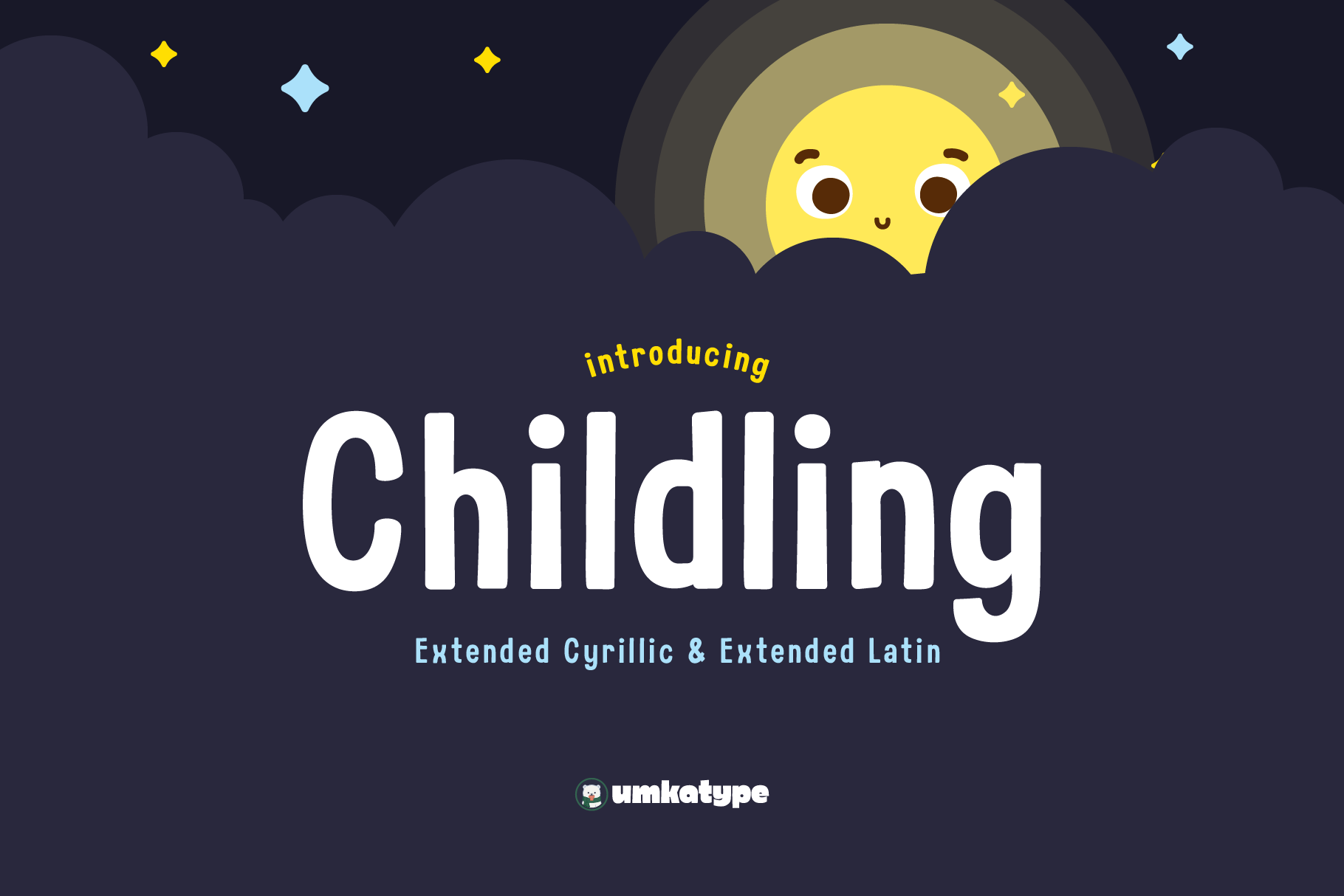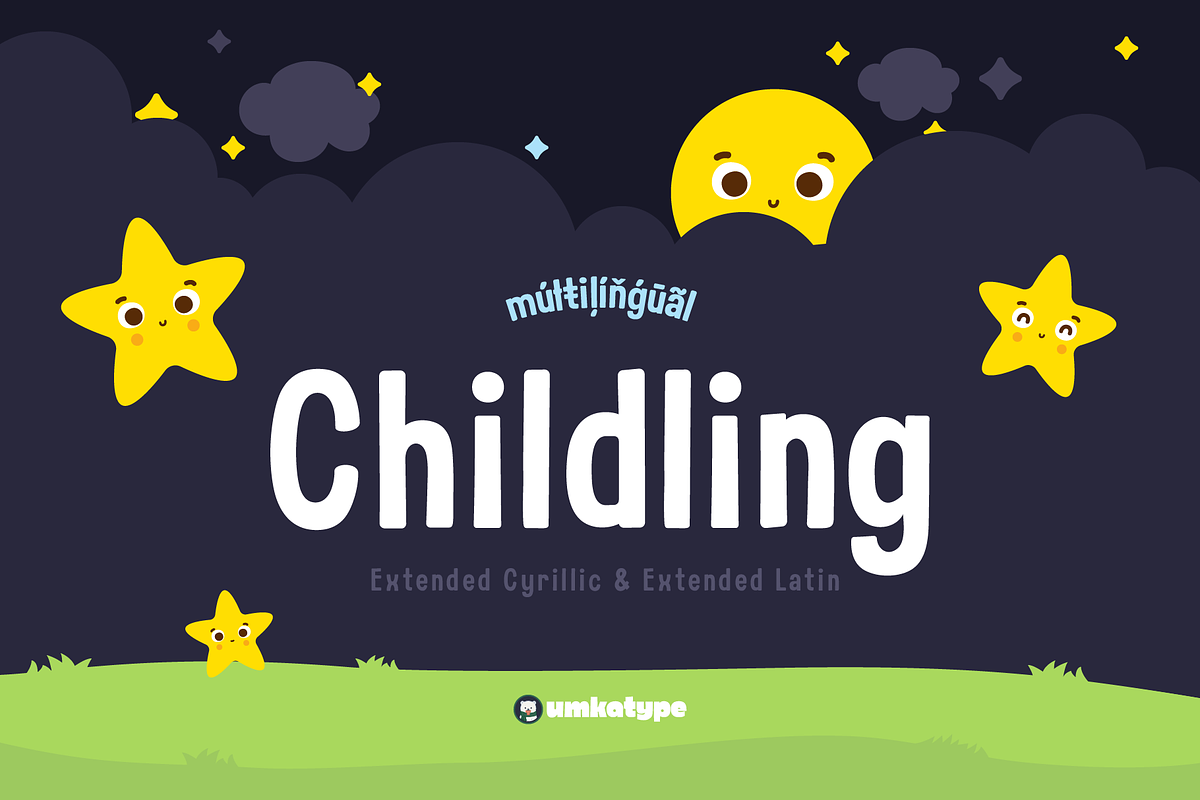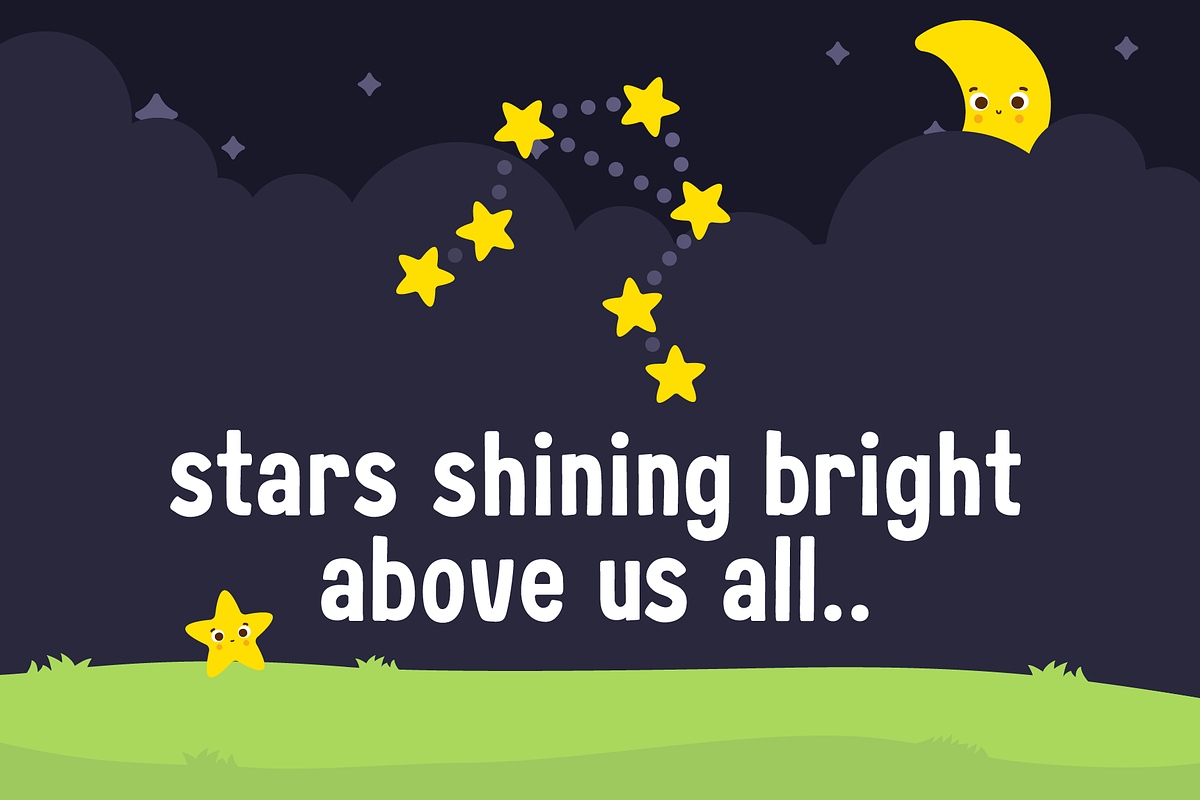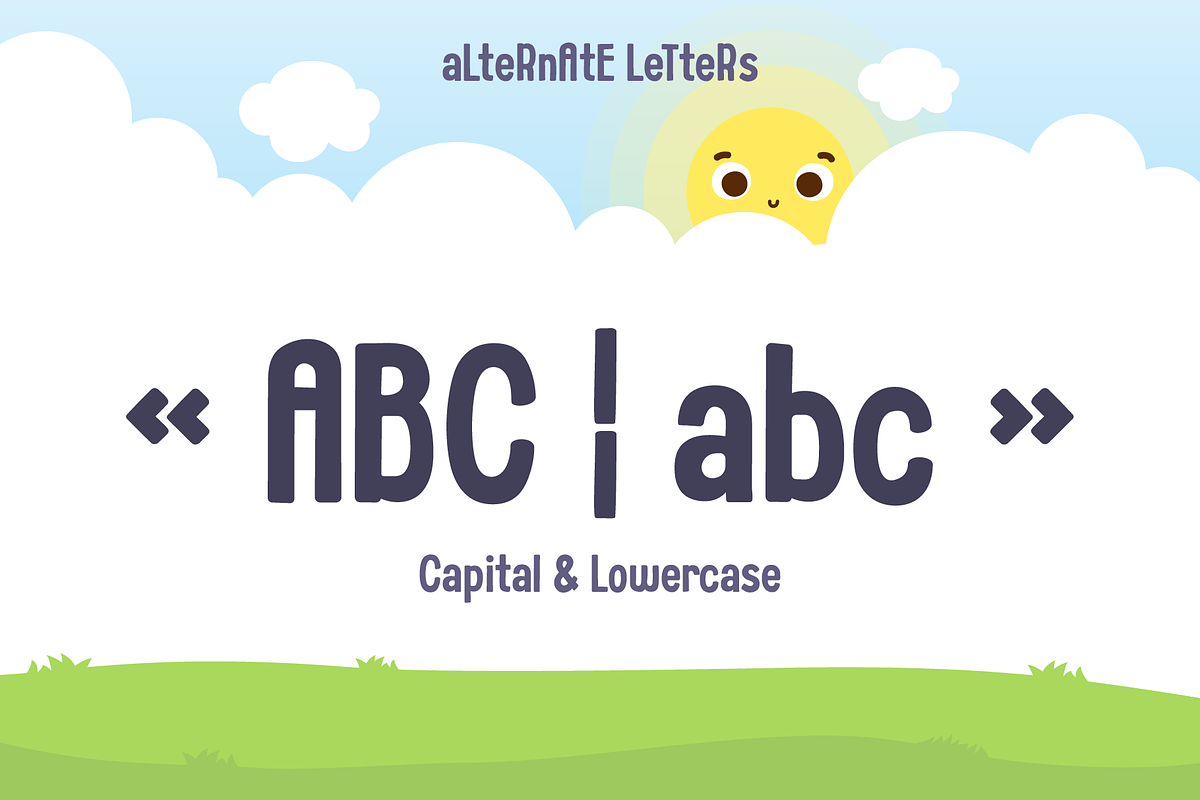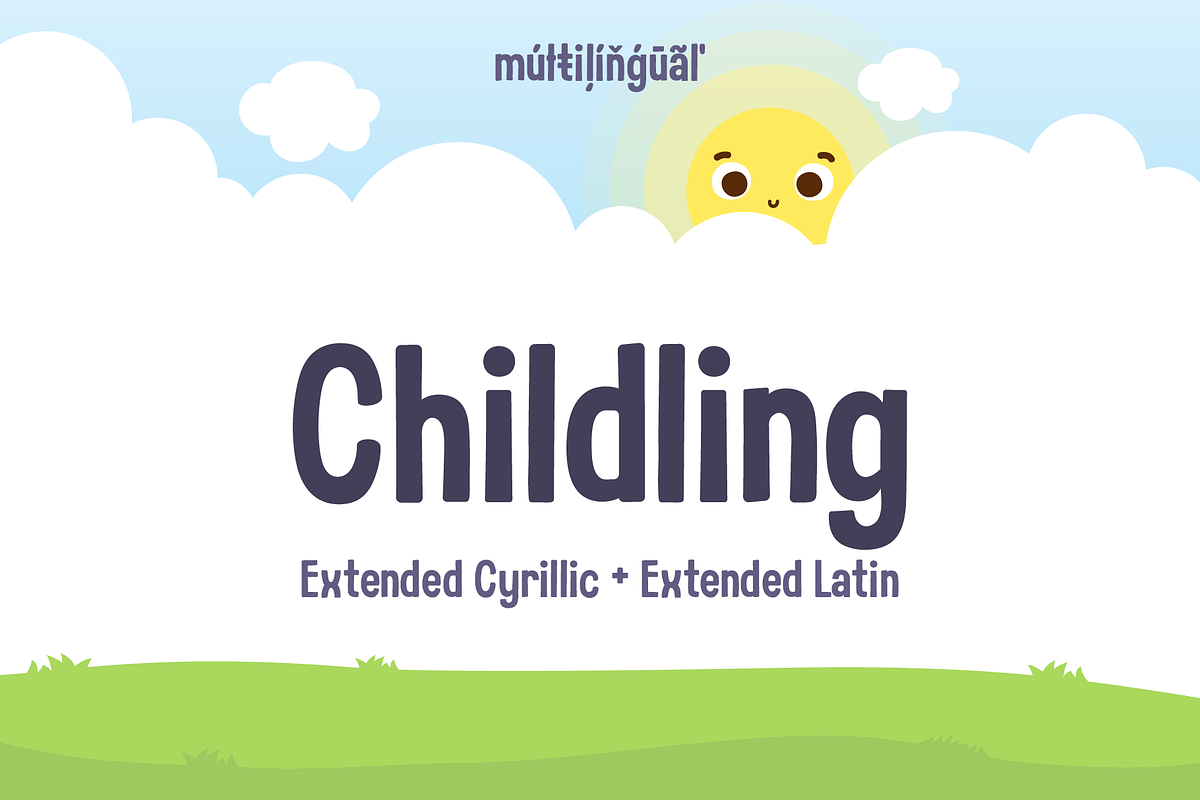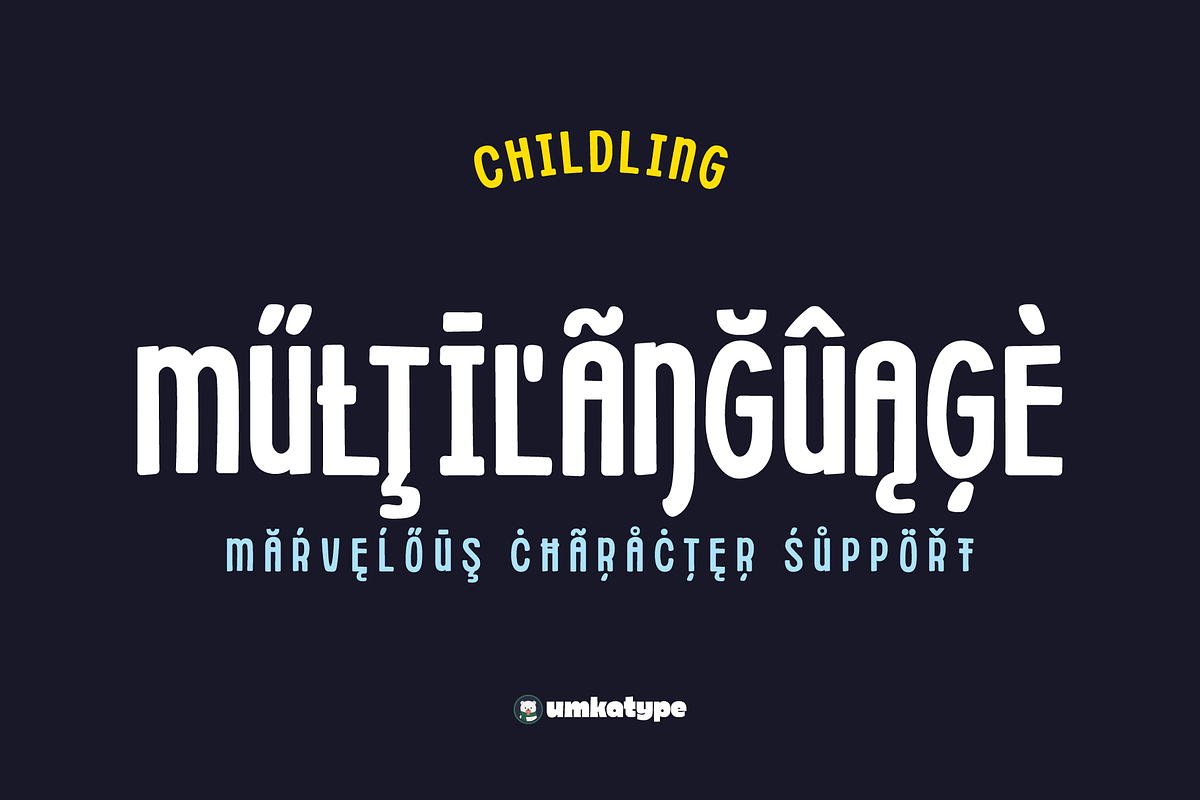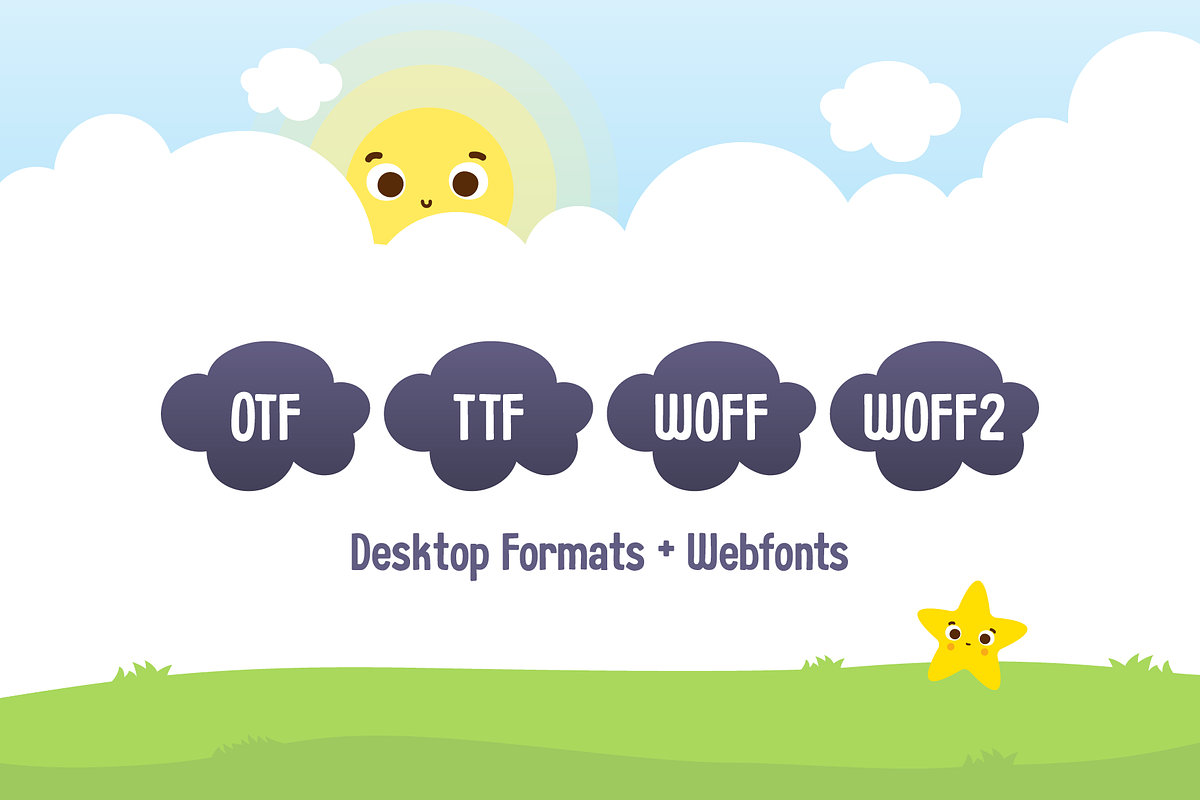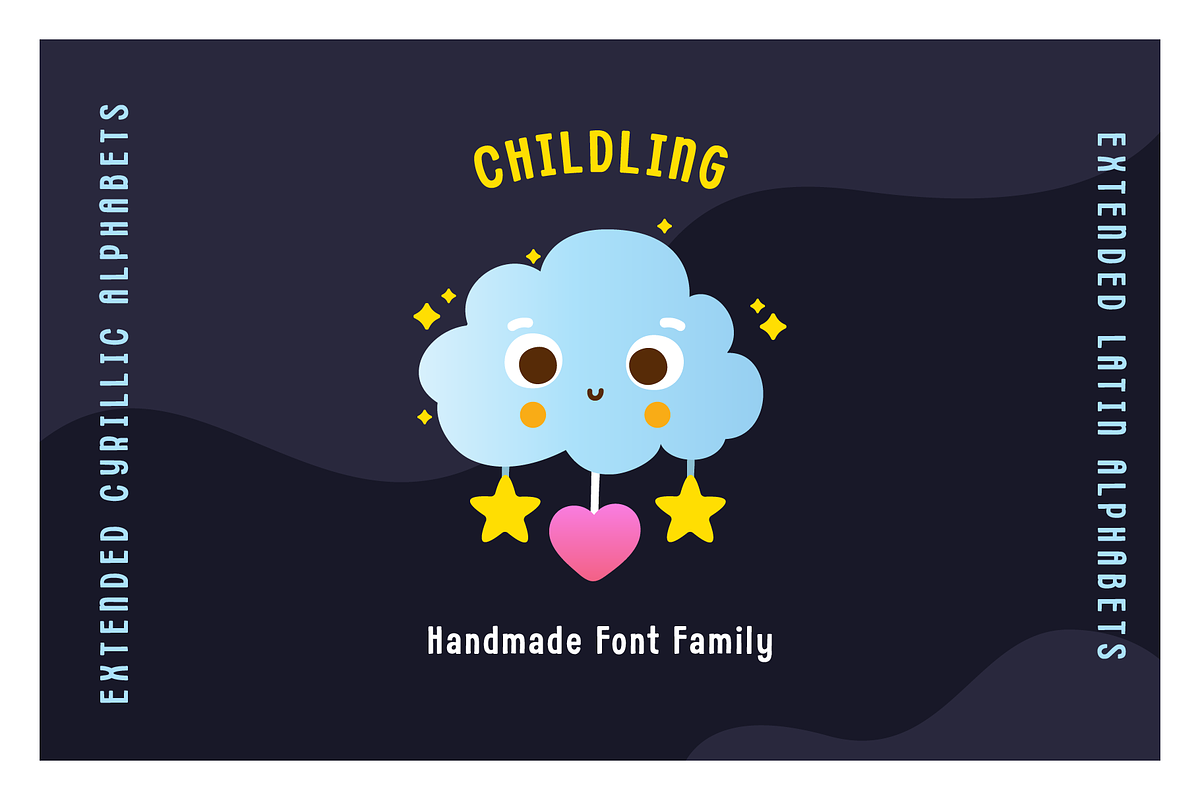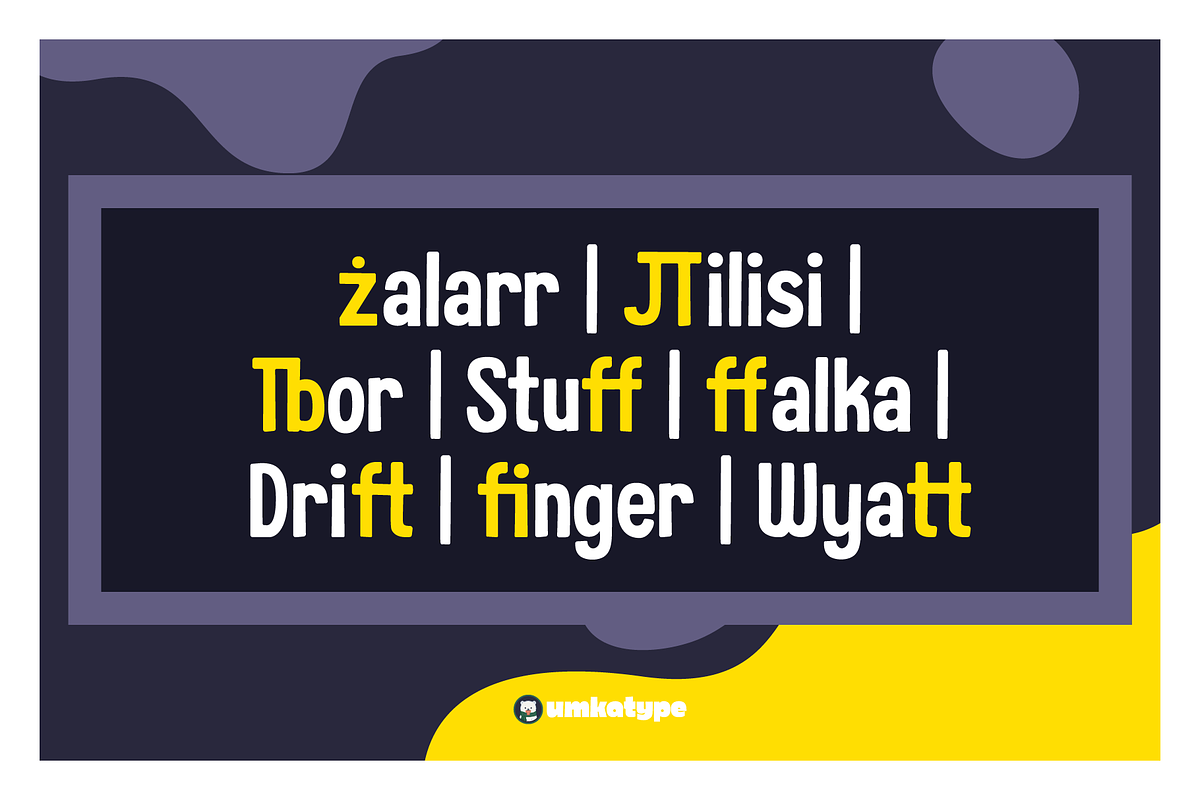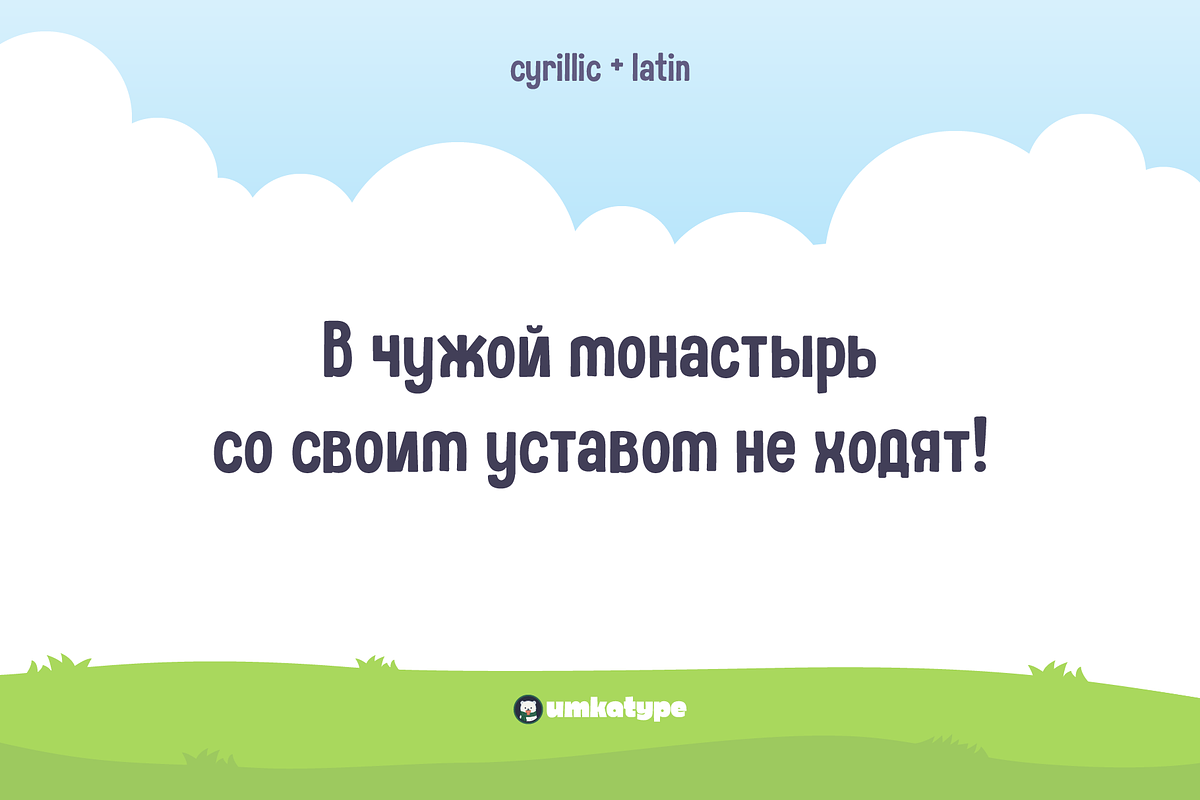
Childling Display Font
Childling - A Fun Font Family
- Childling is a carefully crafted display font.
- Includes most useful ligatures.
- Multilingual and multipurpose.
- Inspired by happy kids and their stories.
Childling created for children books, posters, web design, branding and illustrations.
Language support:
Afrikaans • Albanian • Asu • Basque • Belarusian • Bemba • Bena • Bosnian • Bulgarian • Catalan • Cebuano • Chechen • Chiga • Colognian • Cornish • Corsican • Croatian • Czech • Danish • English • Erzya • Estonian • Faroese • Filipino • Finnish • French • Friulian • Galician • Ganda • German • Gusii • Hungarian • Icelandic • Ido • Inari Sami • Indonesian • Interlingua • Irish • Italian • Javanese • Jju • Jola-Fonyi • Kabuverdianu • Kalaallisut • Kalenjin • Kazakh • Kinyarwanda • Kurdish • Kyrgyz • Latvian • Lithuanian • Lojban • Low German • Lower Sorbian • Luo • Luxembourgish • Luyia • Macedonian • Machame • Makhuwa-Meetto • Makonde • Malagasy • Malay • Maltese • Manx • Māori • Mongolian • Morisyen • North Ndebele • Northern Sami • Northern Sotho • Norwegian Bokmål • Norwegian Nynorsk • Nyanja • Nyankole • Occitan • Oromo • Polish • Portuguese • Romanian • Romansh • Rombo • Rundi • Russian • Rwa • Samburu • Sango • Sangu • Sardinian • Scottish Gaelic • Sena • Serbian • Shambala • Shona • Slovak • Slovenian • Soga • Somali • South Ndebele • Southern Sotho • Spanish • Sundanese • Swahili • Swati • Swedish • Swiss German • Taita • Tajik • Taroko • Tatar • Teso • Tsonga • Tswana • Turkmen • Upper Sorbian • Vunjo • Walloon • Welsh • Wolof • Xhosa • Zulu